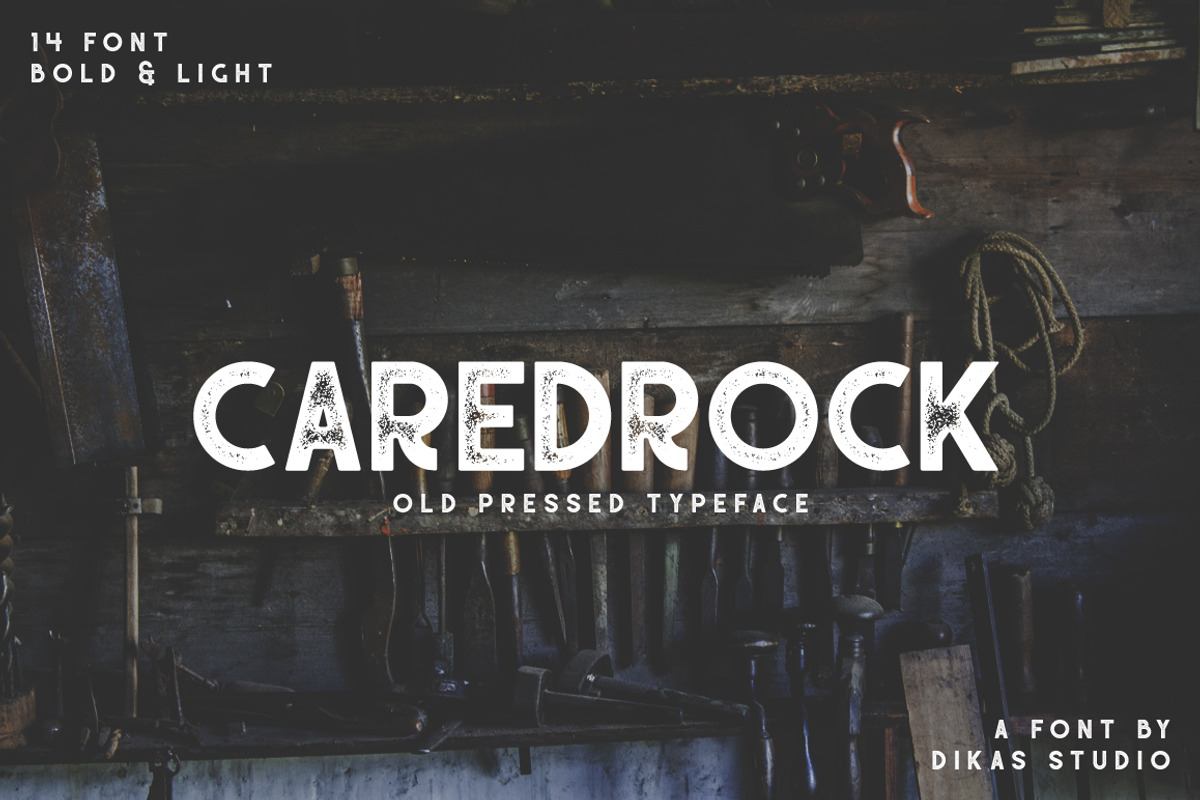
Caredrock - 14 Fonts Style + Extras Free Download
This dynamic bundle includes 14 unique font styles—ranging from strong slab serifs and condensed sans-serifs to textured and layered options—making it ideal for logos, posters, apparel, packaging, and headline design. The included extras offer added visual elements to boost your branding and storytelling.